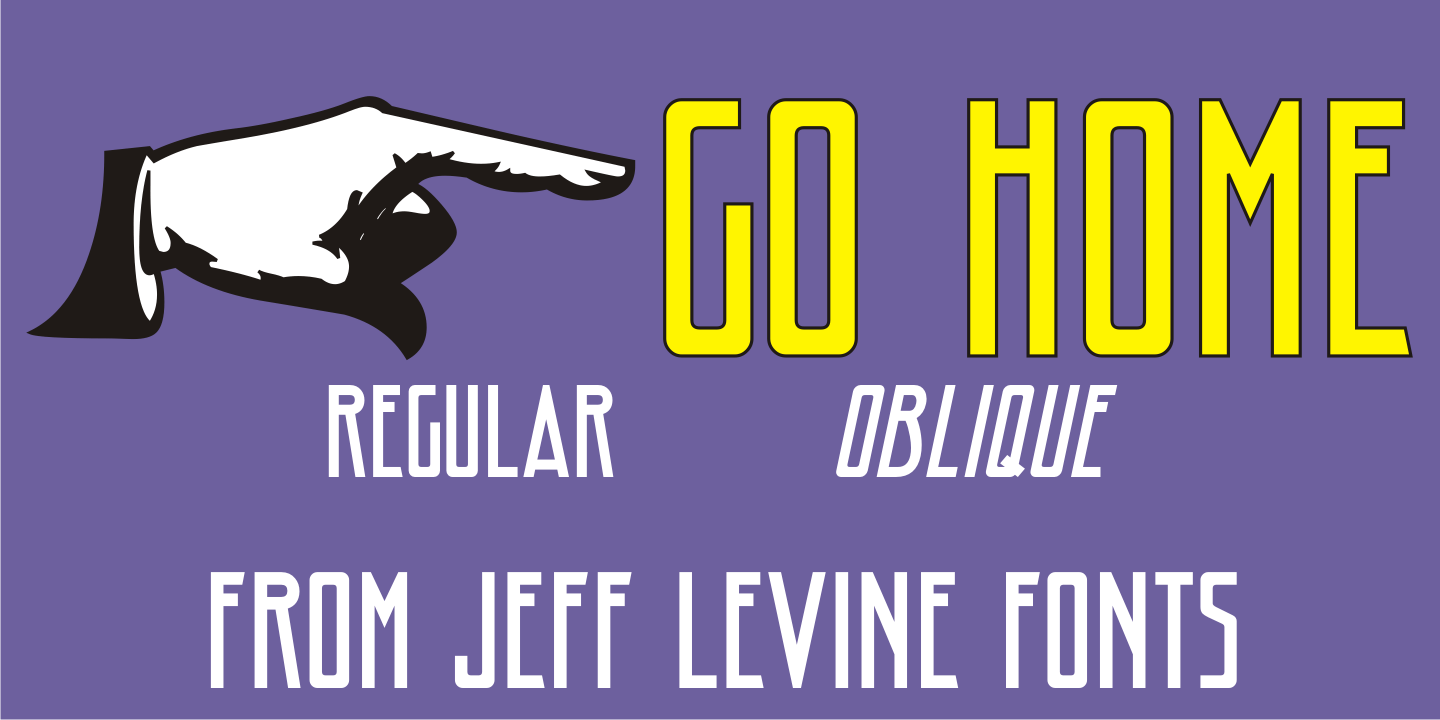
Go Home
Sheet music for another one of those songs from the early part of the 20th Century with a wonderfully wordy hand lettered title was the model for the Art Nouveau flavored Go Home JNL, which is available in both regular and oblique versions.
1908's 'I Used to be Afraid to Go Home in the Dark (Now I'm Afraid to Go at All)” is comprised of eighteen words. It may have been a mouthful to request from the local sheet music shop, but the lettering on its cover made it a great candidate for preserving as a digital typeface.